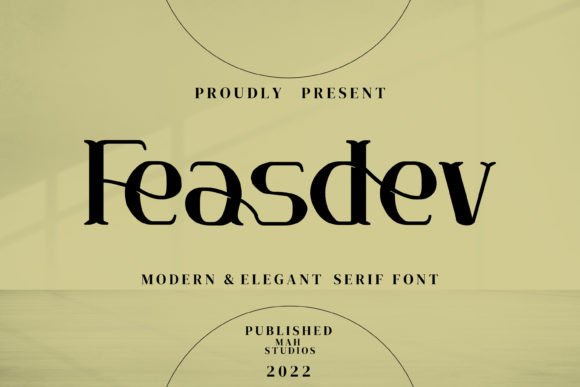
Introducing Feasdev, the serif font that exudes elegance and sophistication. This stunning font is a testament to the beauty of simplicity, with its clean lines and timeless design. Feasdev is the perfect choice for those seeking a font that radiates both grace and authority.
Unleash your creativity with Feasdev, the font that knows no bounds. Whether you're designing logos, crafting brochures, or creating eye-catching social media posts, Feasdev will elevate your work to new heights. Its versatility is truly remarkable, adapting seamlessly to a myriad of design styles and themes.
With Feasdev, you'll discover a world of possibilities. Its meticulously crafted characters dance across the page, captivating your audience with their charm and allure. Let Feasdev be your muse, inspiring you to produce designs that resonate with your audience and leave a lasting impression.
Feasdev is more than just a font; it's an experience. Immerse yourself in its timeless beauty and unlock your creative potential. Feasdev is the key to unlocking a world of design possibilities, where your imagination knows no limits.